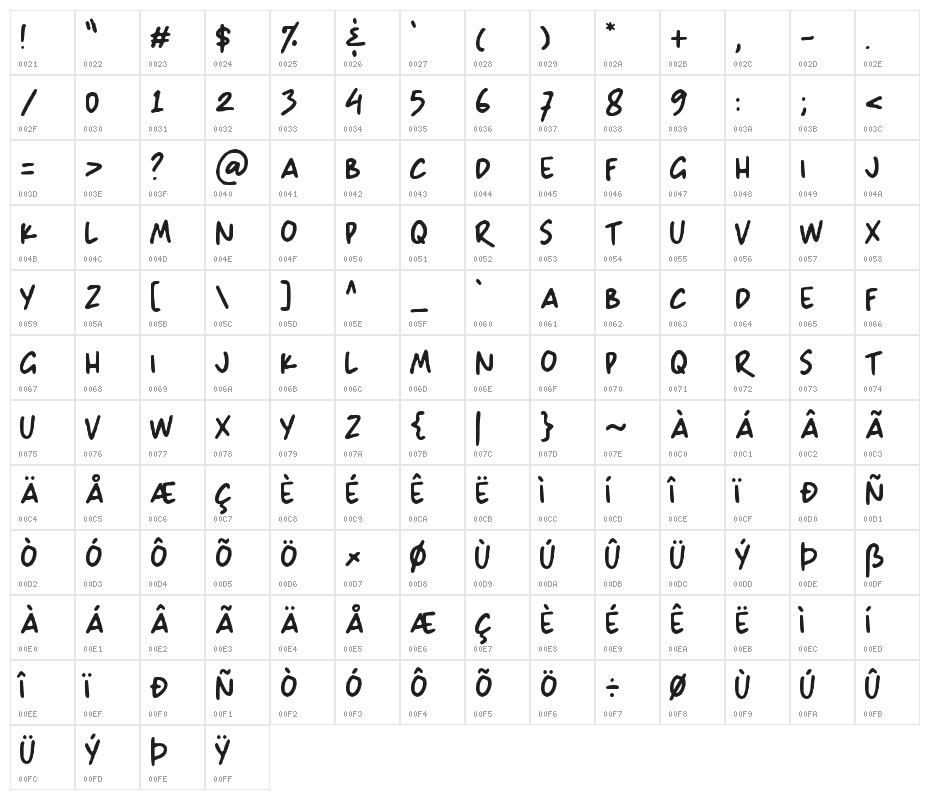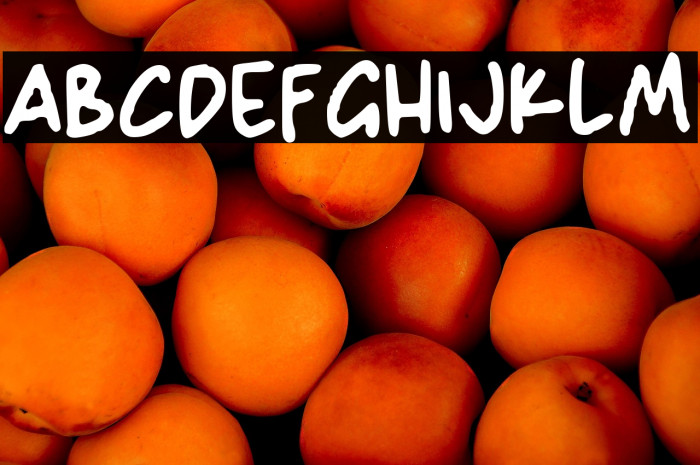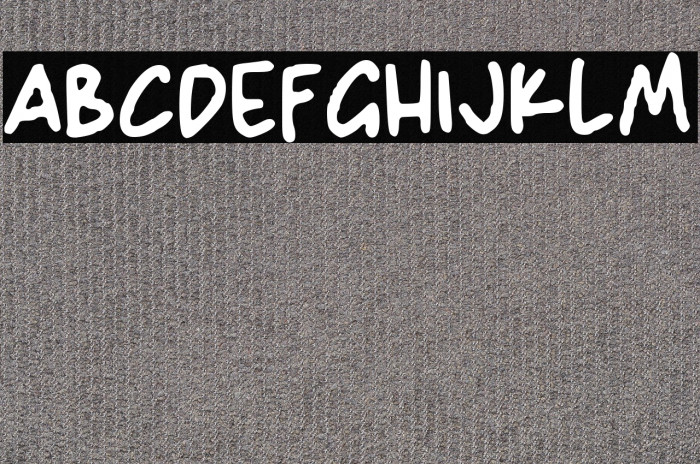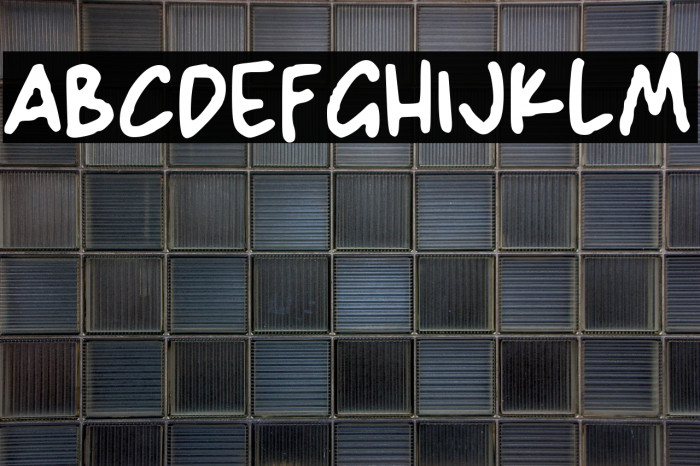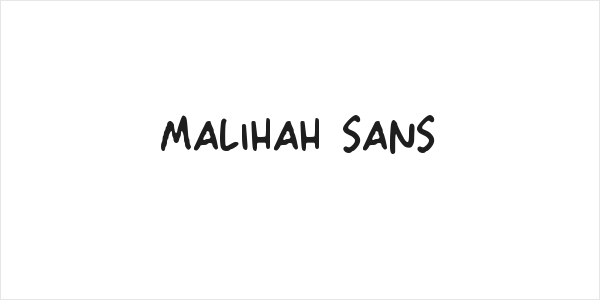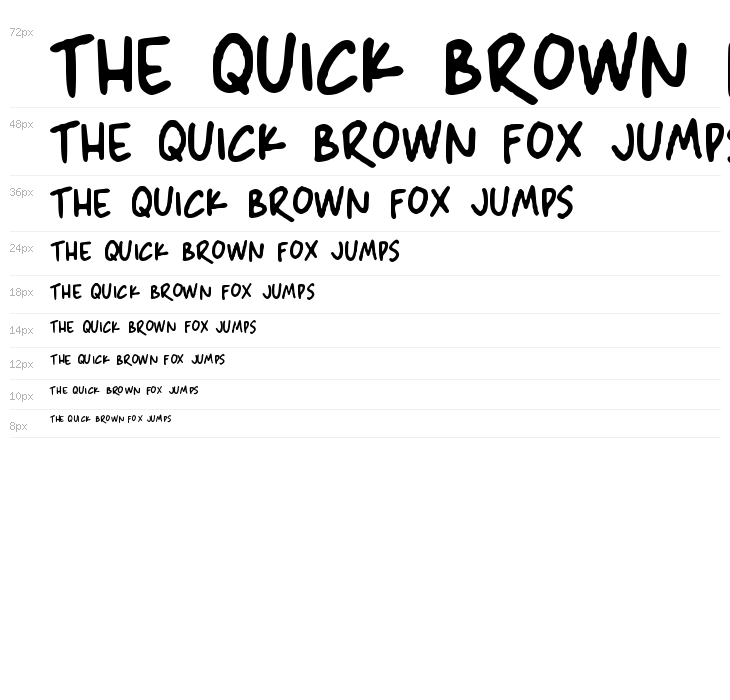
Malihah Sans Font
Malihah Sans Description
This font features a playful and energetic handwritten style, characterized by its bold and slightly irregular strokes. The letters have a casual, informal appearance, with a dynamic flow that suggests movement and spontaneity. The uppercase and lowercase letters maintain a consistent style, with rounded edges and a slightly slanted orientation. The numerals and special characters are crafted with the same lively spirit, making them blend seamlessly with the alphabet. This font's unique personality makes it stand out, offering a friendly and approachable vibe.
| Proposed Projects | Ideal for creative projects such as children's books, greeting cards, posters, and branding that requires a personal touch. |